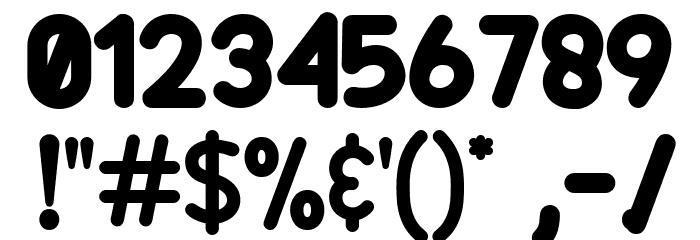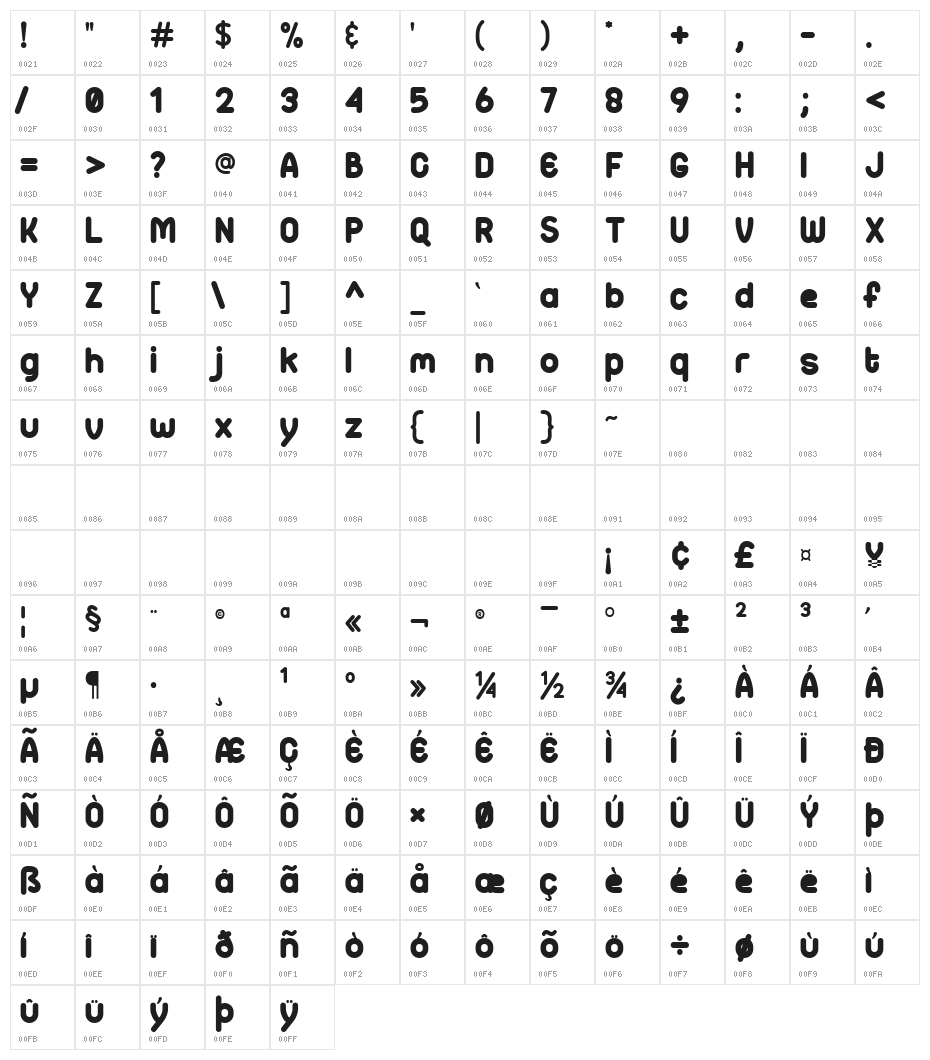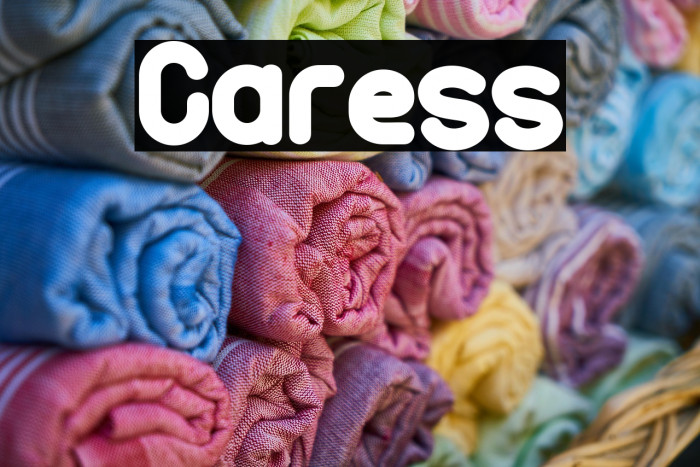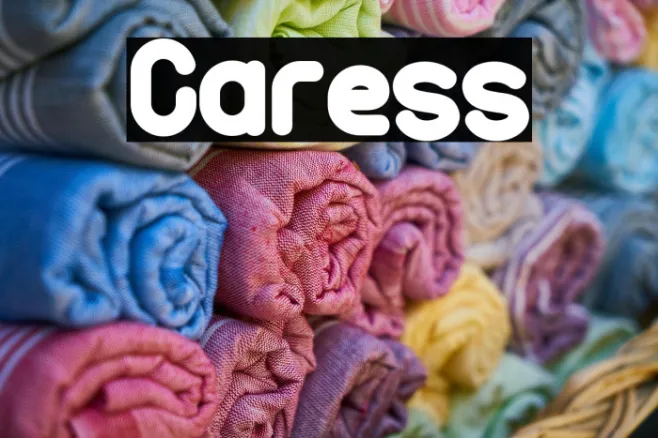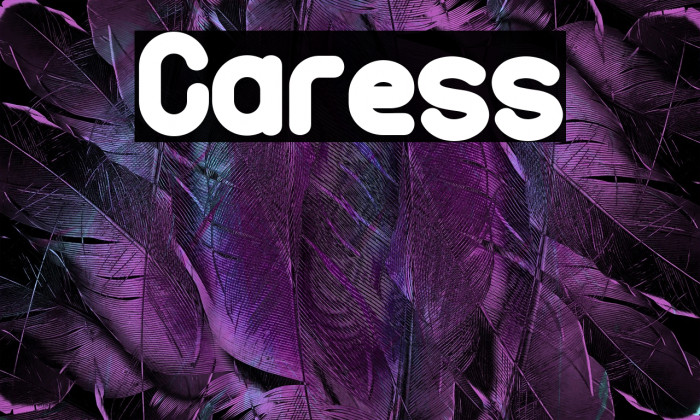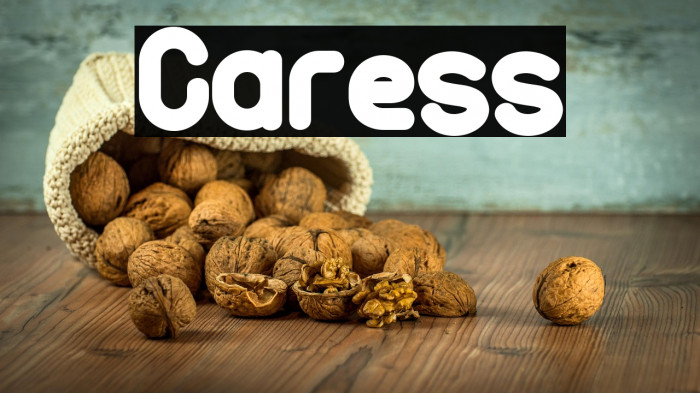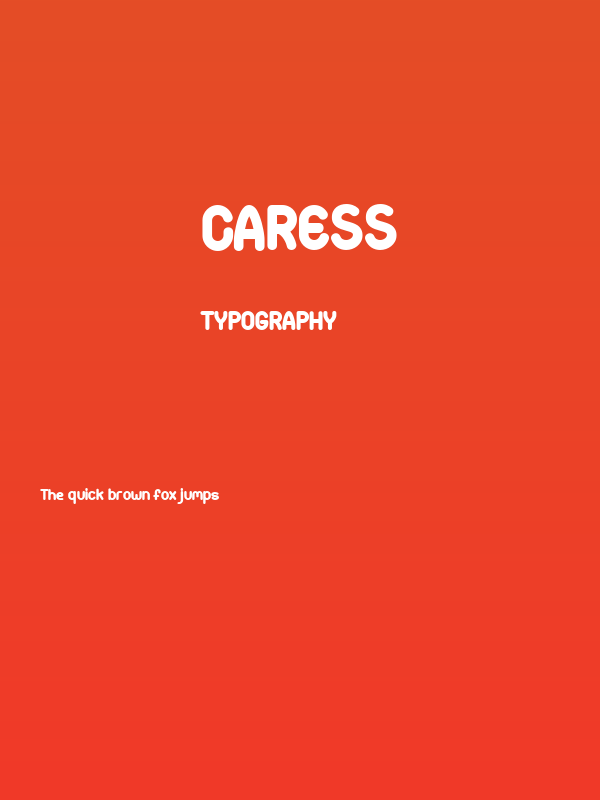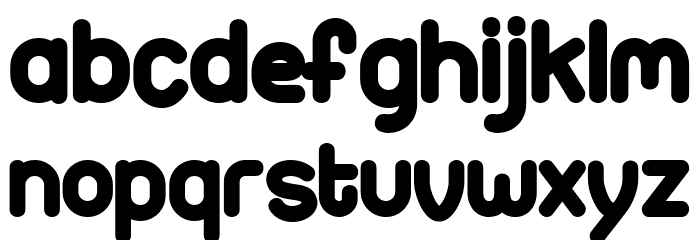
Caress Font
Caress Description
This font features a bold and rounded style with a playful and friendly appearance. The characters are uniformly thick, giving it a consistent and cohesive look. The rounded edges and smooth curves create a sense of warmth and approachability, making it ideal for casual and informal designs. The uppercase and lowercase letters maintain a balanced proportion, while the numerals and special characters are designed to complement the overall aesthetic. This font is versatile and can be used in various design contexts where a welcoming and modern feel is desired.
| Use Case | Headlines, Logos, Casual Text |
| Proposed Projects | Ideal for children's books, playful branding, casual invitations, and friendly product packaging. |